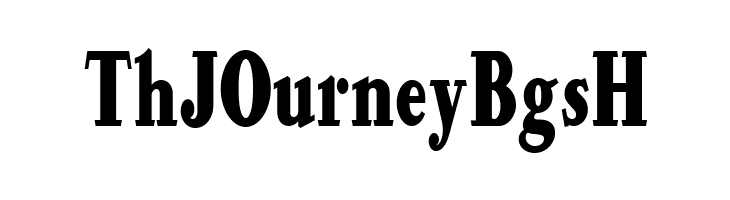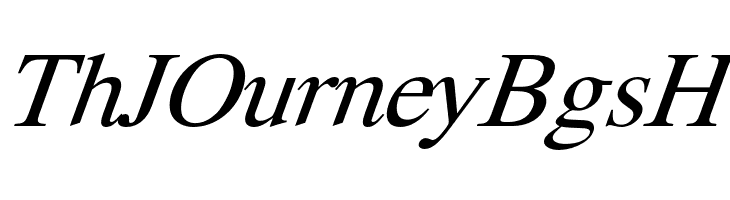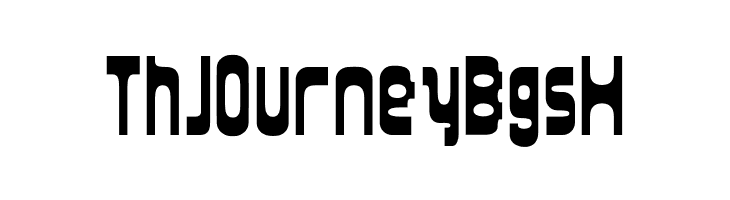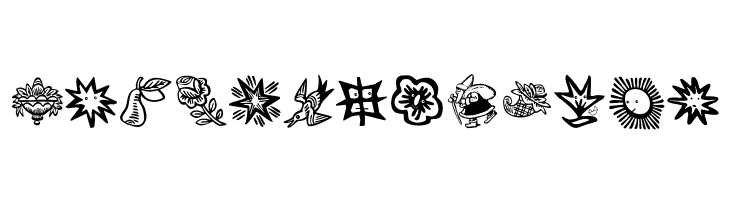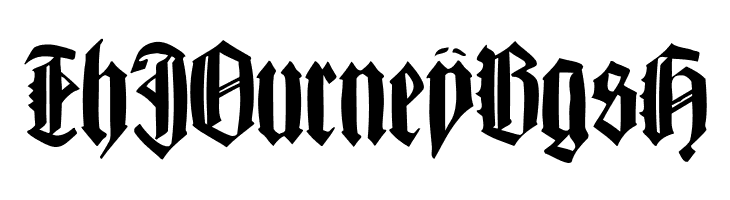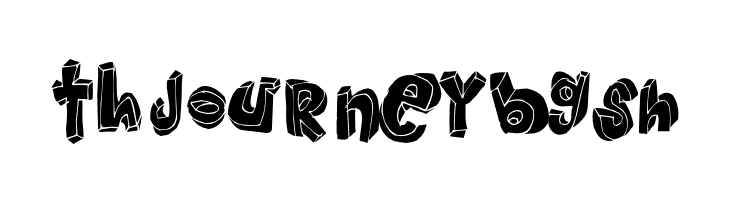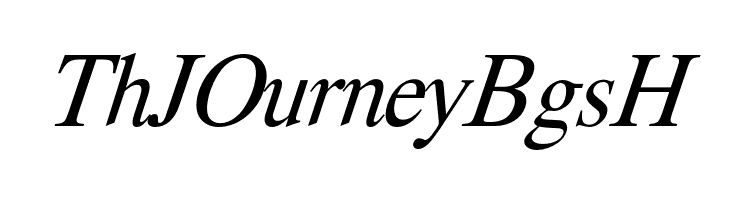
• HANGUP
A bold, playful font with a three-dimensional, shadowed style.
• HANGUP
A bold, playful font with a 3D graffiti-like style.
• Hanzui Bold
A bold, geometric font with a modern and impactful design.
• Happy Campers NF
A bold, serif font with strong strokes and classic elegance.
• Happy Time
An elegant serif font with a classic italic style and smooth, flowing lines.
• Happy Time Three
An elegant serif font with a classic italic style and high contrast.
• Happy Time Three
An elegant serif font with italicized characters and medium contrast.
• Happy Time Two
A classic serif typeface with an elegant italic slant and moderate contrast.
• HappyFraxx
A bold, dramatic Blackletter-style font with intricate details and sharp, angular lines.
• HappyXmasBats
A whimsical collection of festive decorative symbols and illustrations.